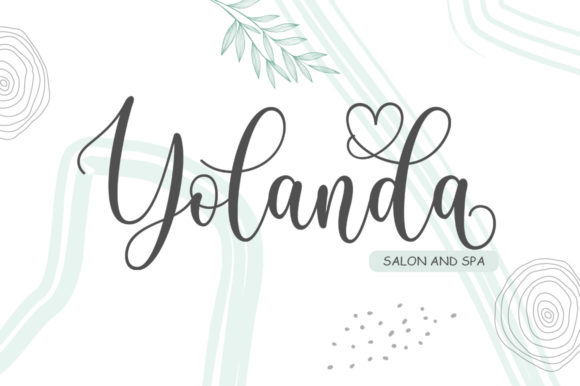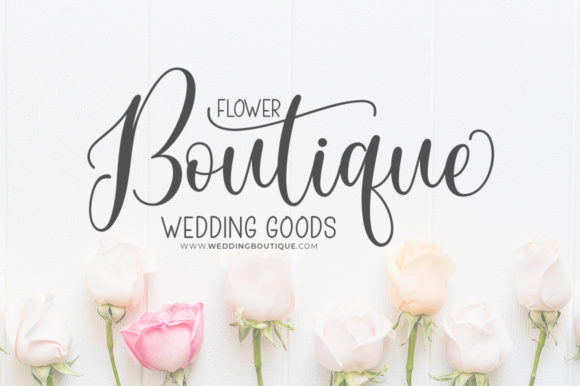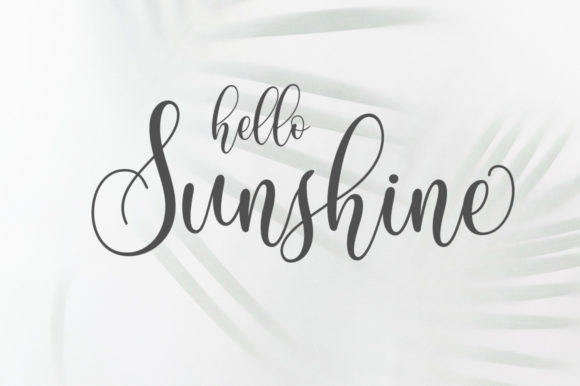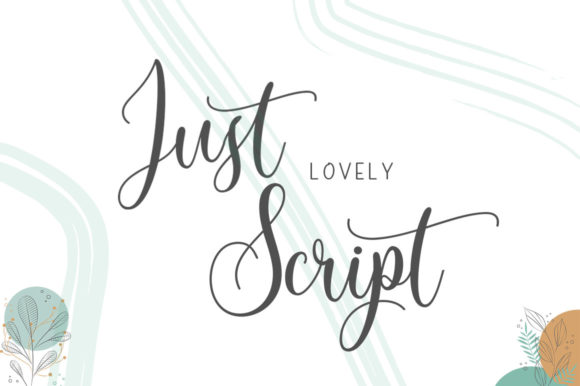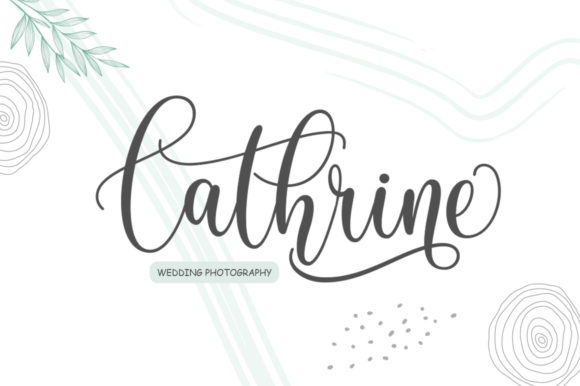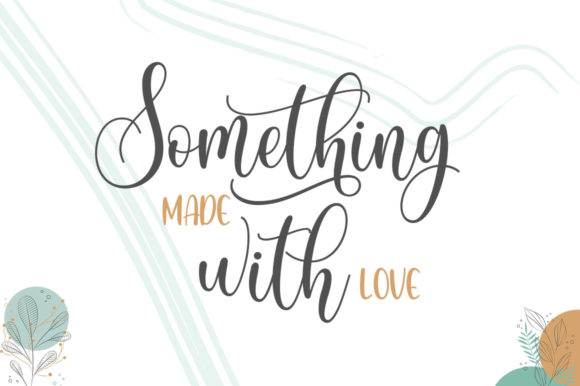
Introducing Amelia Script Font: The Perfect Choice for Modern Designs
In the world of typography, script fonts have always been a popular choice for designers and crafters looking to add a touch of elegance and sophistication to their projects. One such font that has been making waves in the design community is Amelia Script Font. This modern script font has been gaining attention for its unique irregular baseline, trendy, and feminine look. In this article, we’ll dive deeper into the features and uses of Amelia Script Font, and explore why it’s becoming a favorite among designers and crafters.
What is Amelia Script Font?
Amelia Script Font is a modern script font designed with an irregular baseline, which gives it a distinctive and stylish look. The font is characterized by its flowing lines, elegant curves, and a touch of playfulness. This unique combination makes Amelia Script Font perfect for a wide range of design projects, from wedding invitations and greeting cards to logos and business cards.
Key Features of Amelia Script Font
• Irregular Baseline: The irregular baseline of Amelia Script Font gives it a unique and trendy look that sets it apart from other script fonts.
• Trendy and Feminine: The font has a distinctly feminine touch, making it perfect for designs that require a touch of elegance and sophistication.
• Highly Versatile: Amelia Script Font can be used for a wide range of design projects, including wedding invitations, thank you cards, quotes, greeting cards, logos, business cards, and more.
• Perfect for Ink and Watercolor: The font is optimized for use in ink or watercolor designs, making it a great choice for crafters and designers who work with these mediums.
Uses of Amelia Script Font
Amelia Script Font is an incredibly versatile font that can be used for a wide range of design projects. Here are some of the most popular uses of this beautiful font:
• Wedding Invitations: The elegant and sophisticated look of Amelia Script Font makes it perfect for wedding invitations, save-the-date cards, and other wedding-related designs.
• Greeting Cards: The font’s playful and feminine touch makes it a great choice for greeting cards, including birthday cards, thank you cards, and holiday cards.
• Logos and Branding: Amelia Script Font can be used to create beautiful and elegant logos, perfect for businesses that want to convey a sense of sophistication and style.
• Quotes and Posters: The font’s unique irregular baseline makes it perfect for quotes and posters, adding a touch of elegance and sophistication to any design.
• Business Cards: Amelia Script Font can be used to create beautiful and professional business cards that make a lasting impression.
Why Choose Amelia Script Font?
With so many script fonts available, why choose Amelia Script Font? Here are a few reasons why designers and crafters are falling in love with this beautiful font:
• Unique and Trendy: Amelia Script Font has a unique and trendy look that sets it apart from other script fonts.
• Elegant and Sophisticated: The font’s elegant and sophisticated look makes it perfect for designs that require a touch of luxury and style.
• Highly Versatile: Amelia Script Font can be used for a wide range of design projects, making it a great addition to any designer’s toolkit.
• Easy to Use: The font is easy to use and can be easily integrated into any design project.
Font Name Amelia Script Font
Author softcreative50
Amelia Script Font is a beautiful and versatile font that is perfect for designers and crafters looking to add a touch of elegance and sophistication to their projects. With its unique irregular baseline, trendy, and feminine look, Amelia Script Font is sure to become a favorite among designers and crafters. Whether you’re working on a wedding invitation, greeting card, logo, or business card, Amelia Script Font is a great choice. So why not give it a try and see the difference it can make in your designs?